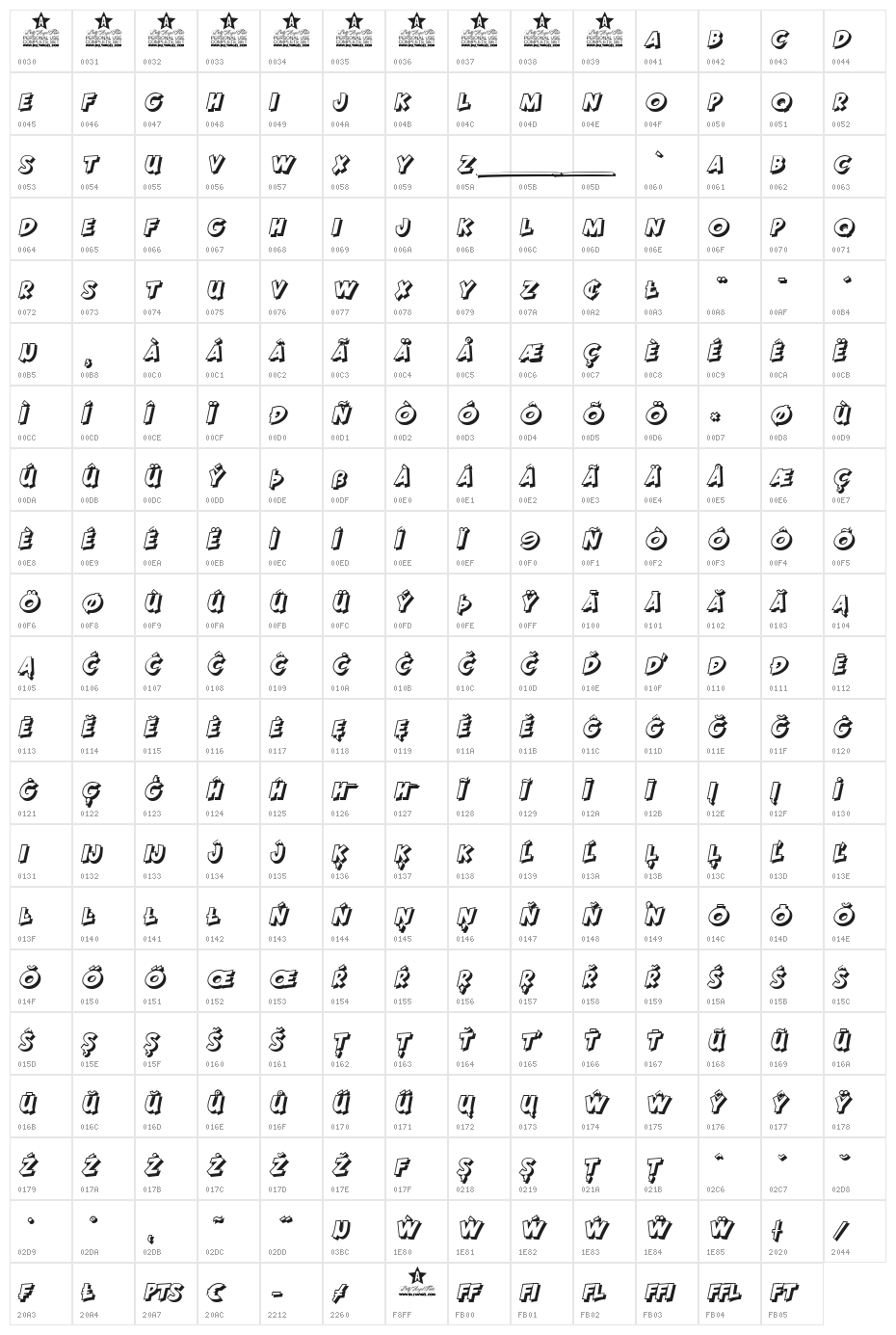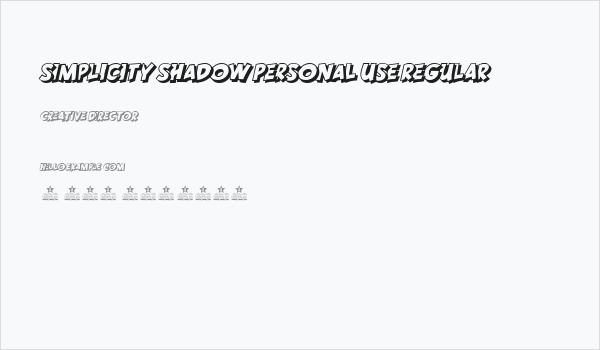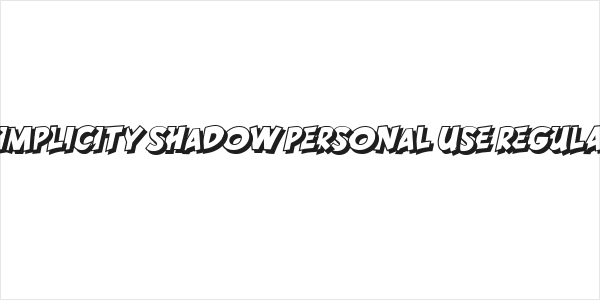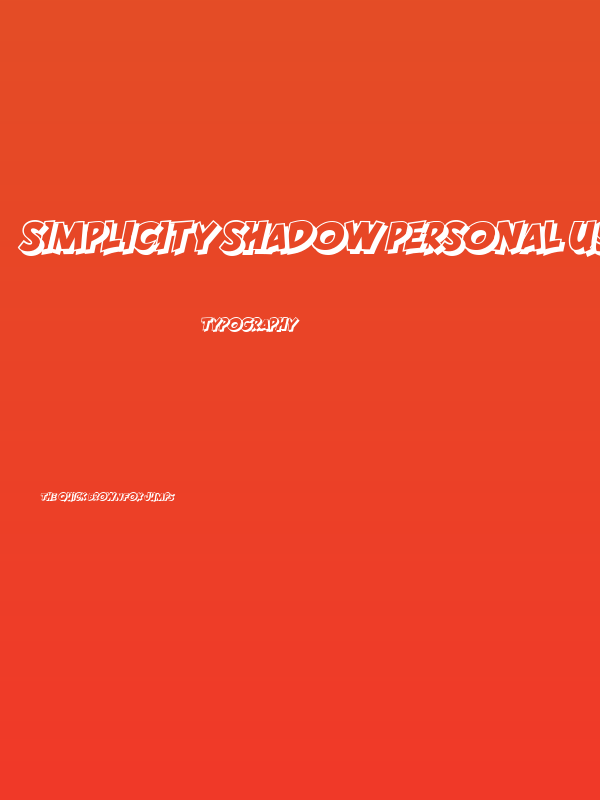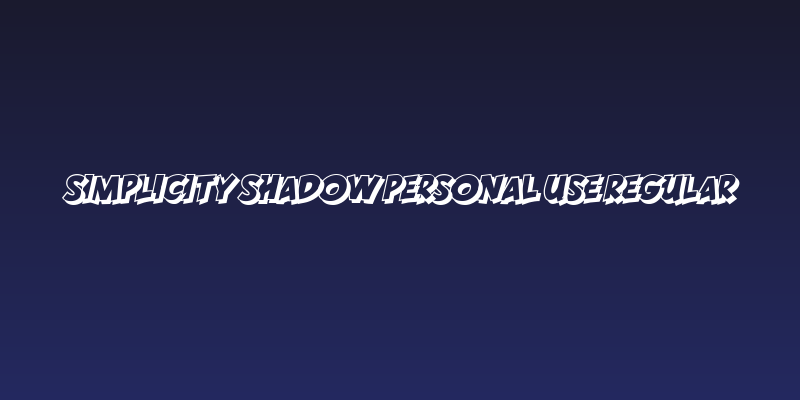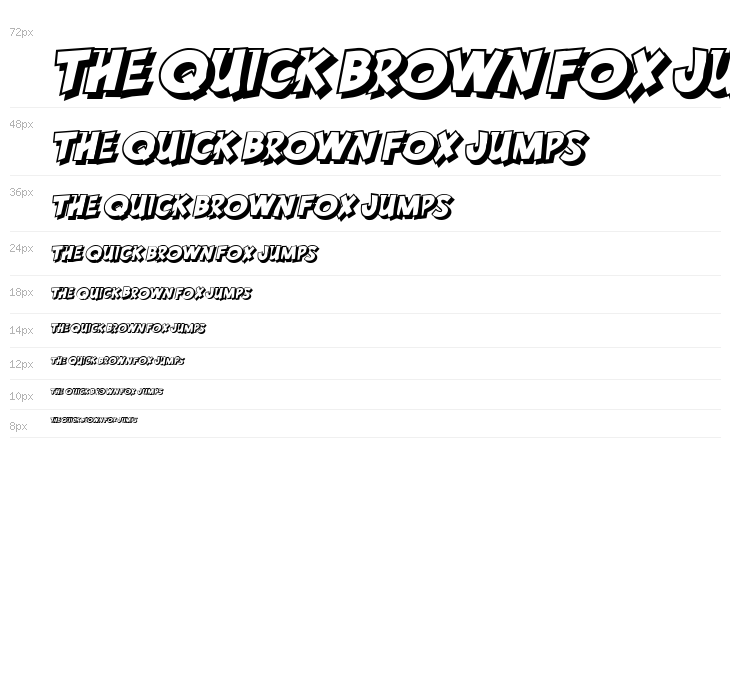
SIMPLICITY SHADOW PERSONAL USE Regular Font
SIMPLICITY SHADOW PERSONAL USE Regular Description
This font features bold, uppercase letters with a distinct shadow effect that gives it a three-dimensional appearance. The characters are designed with sharp angles and a playful, dynamic style, making them stand out prominently. The shadowing adds depth and a sense of movement, which is ideal for eye-catching designs. The font is suitable for creating impactful headlines, posters, and other graphic elements that require a strong visual presence. Its boldness and unique shadow effect make it perfect for projects that aim to convey energy and excitement.
| Proposed Projects | Ideal for posters, headlines, logos, and any design needing a bold, energetic look. |